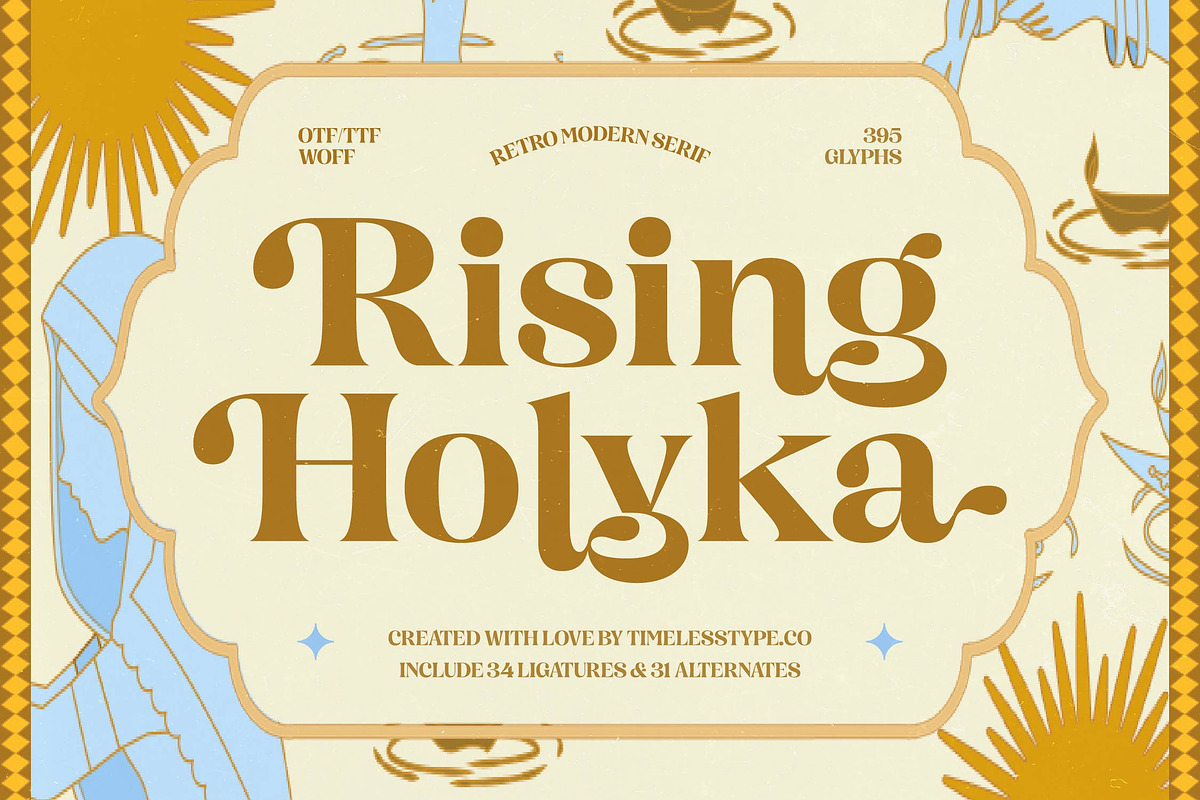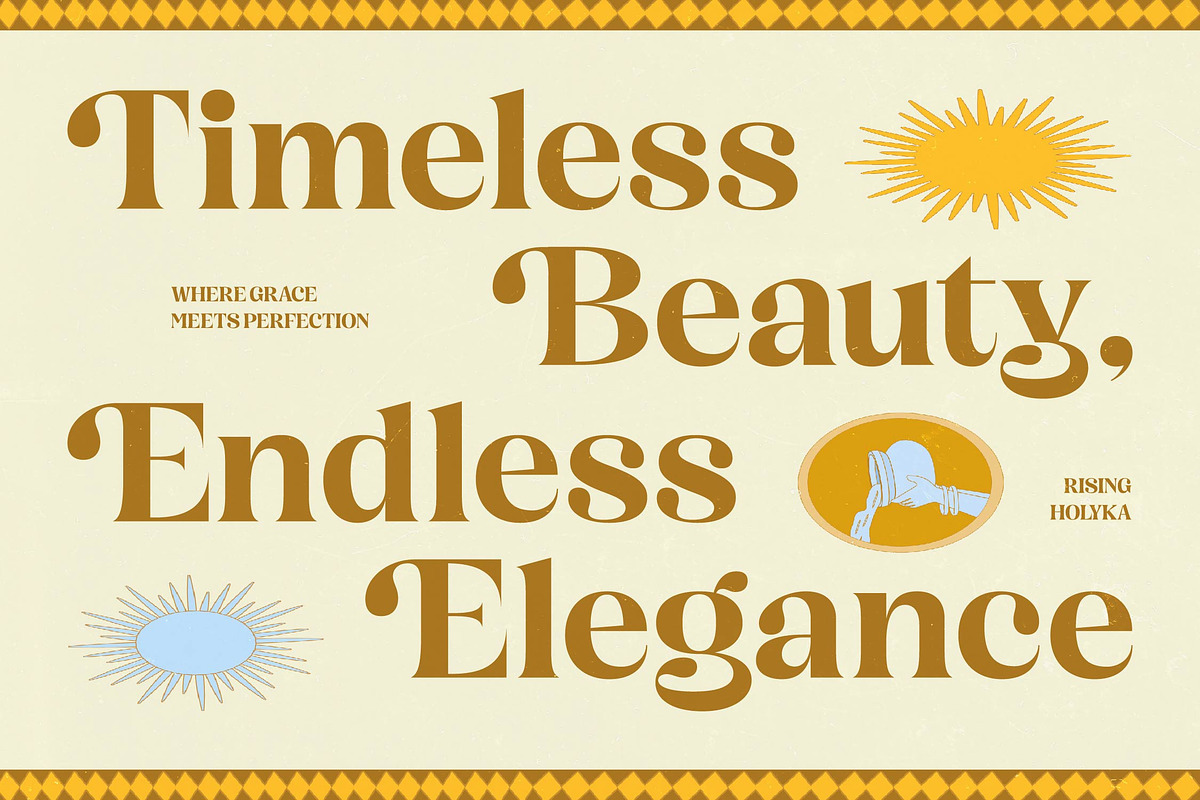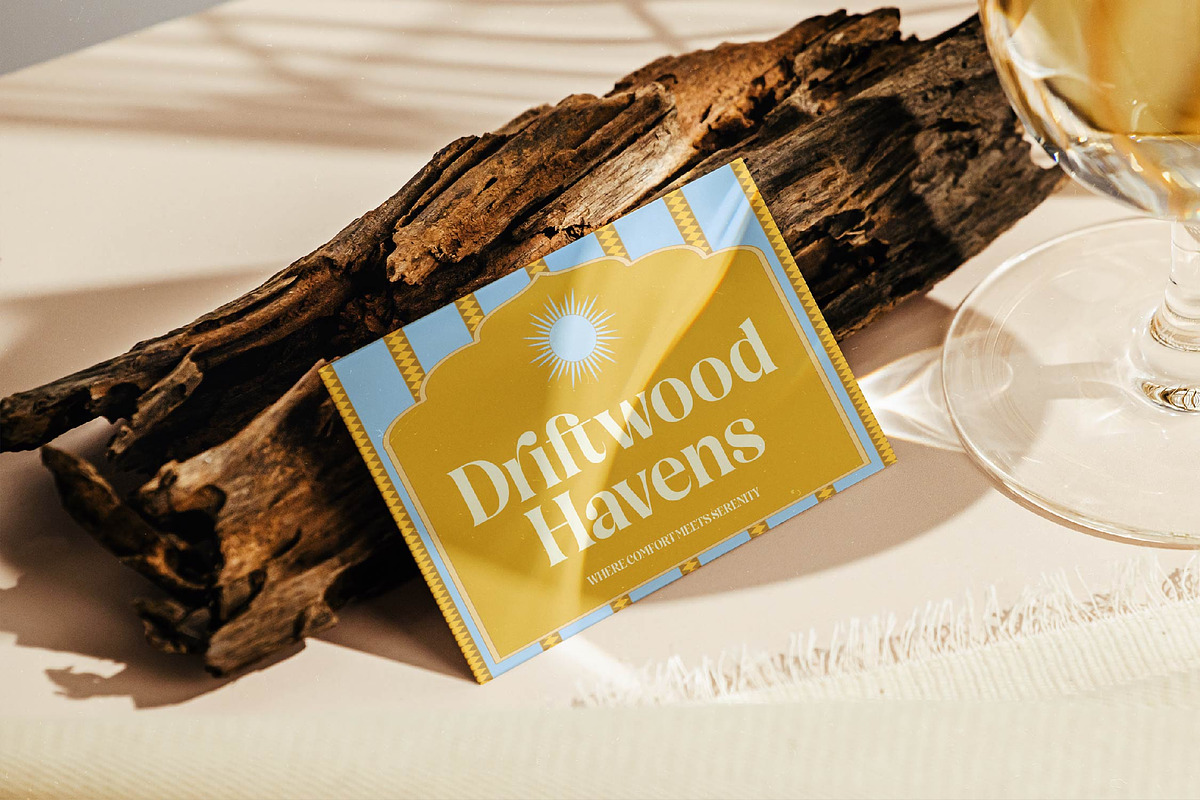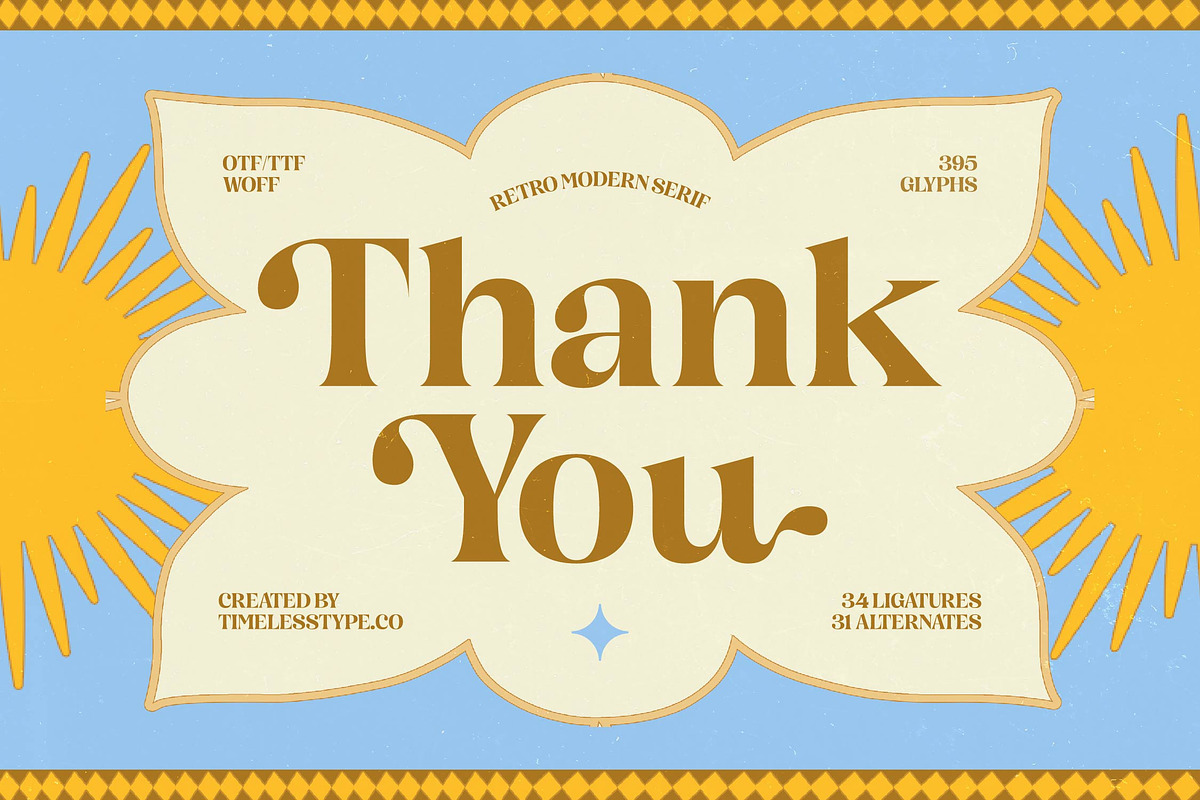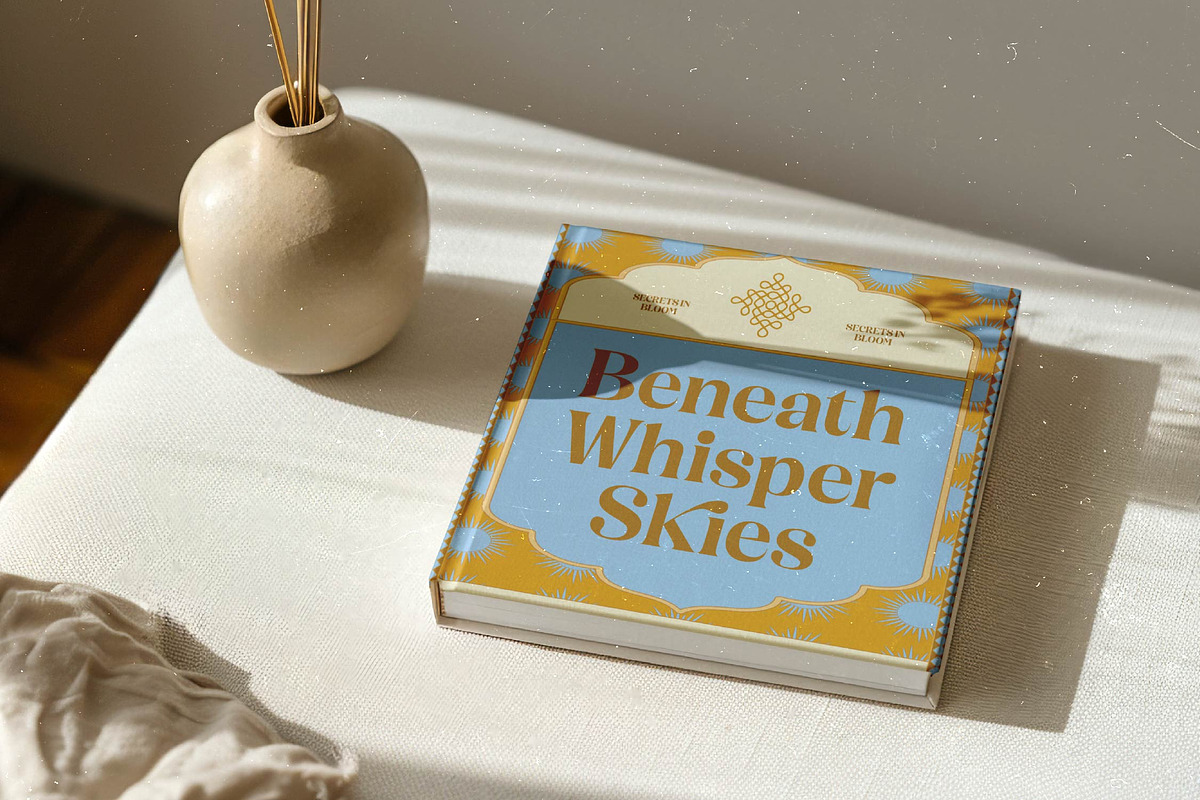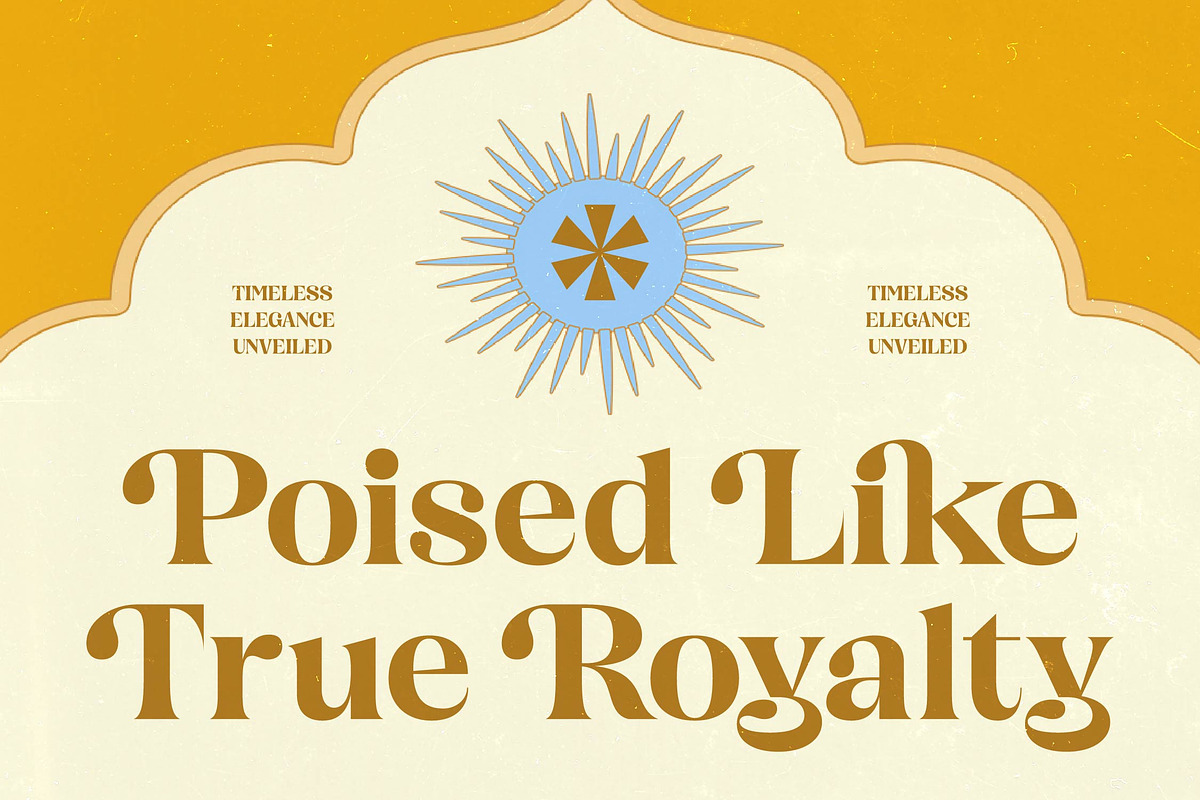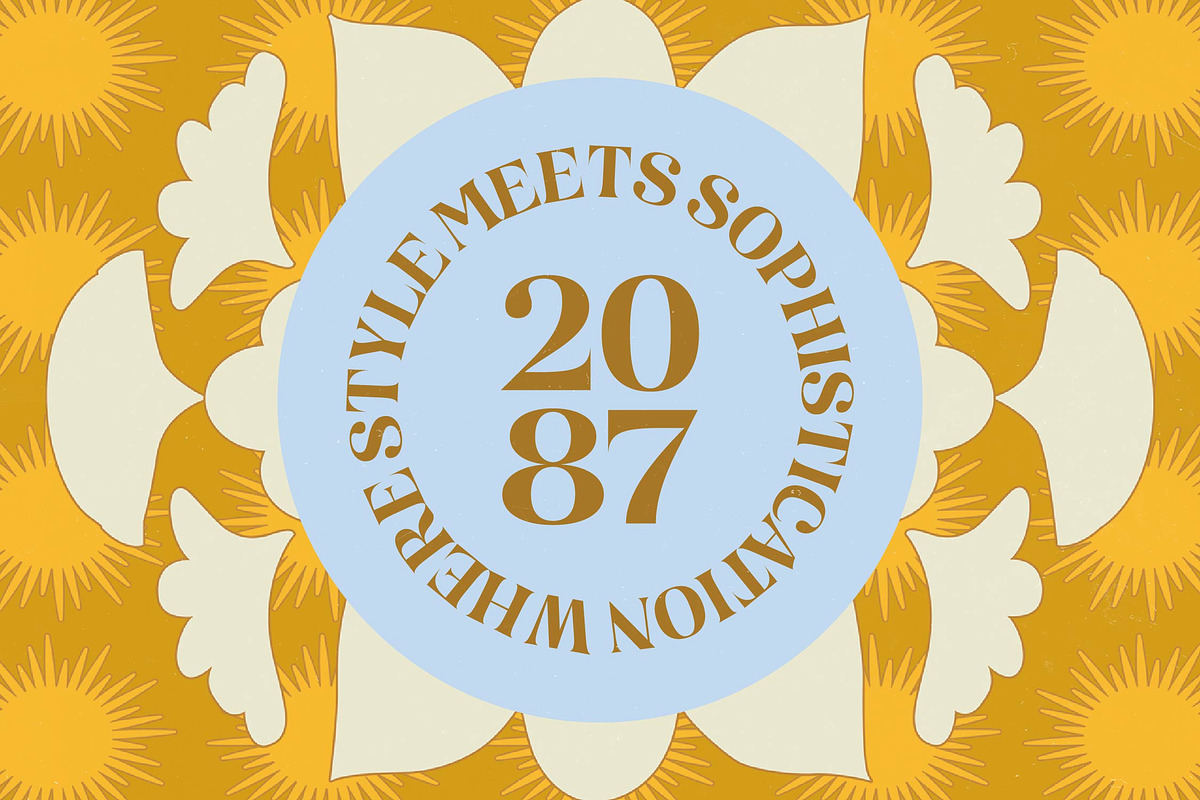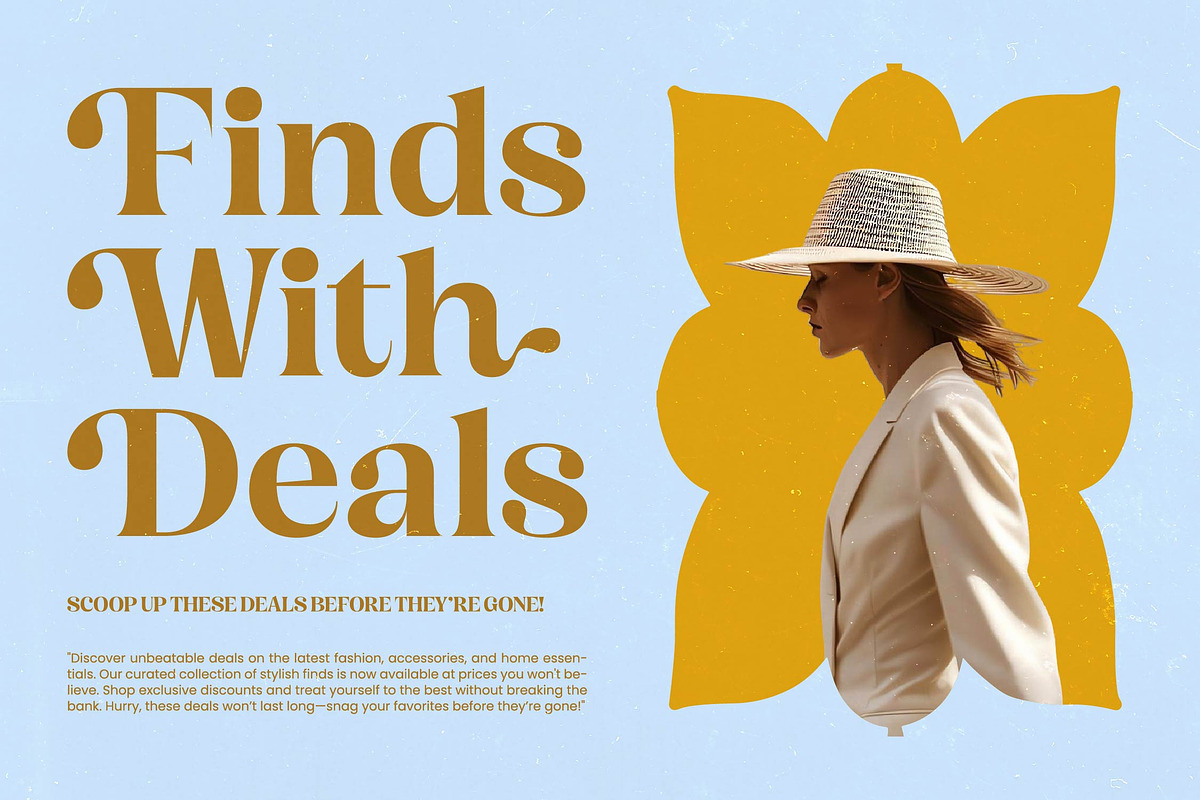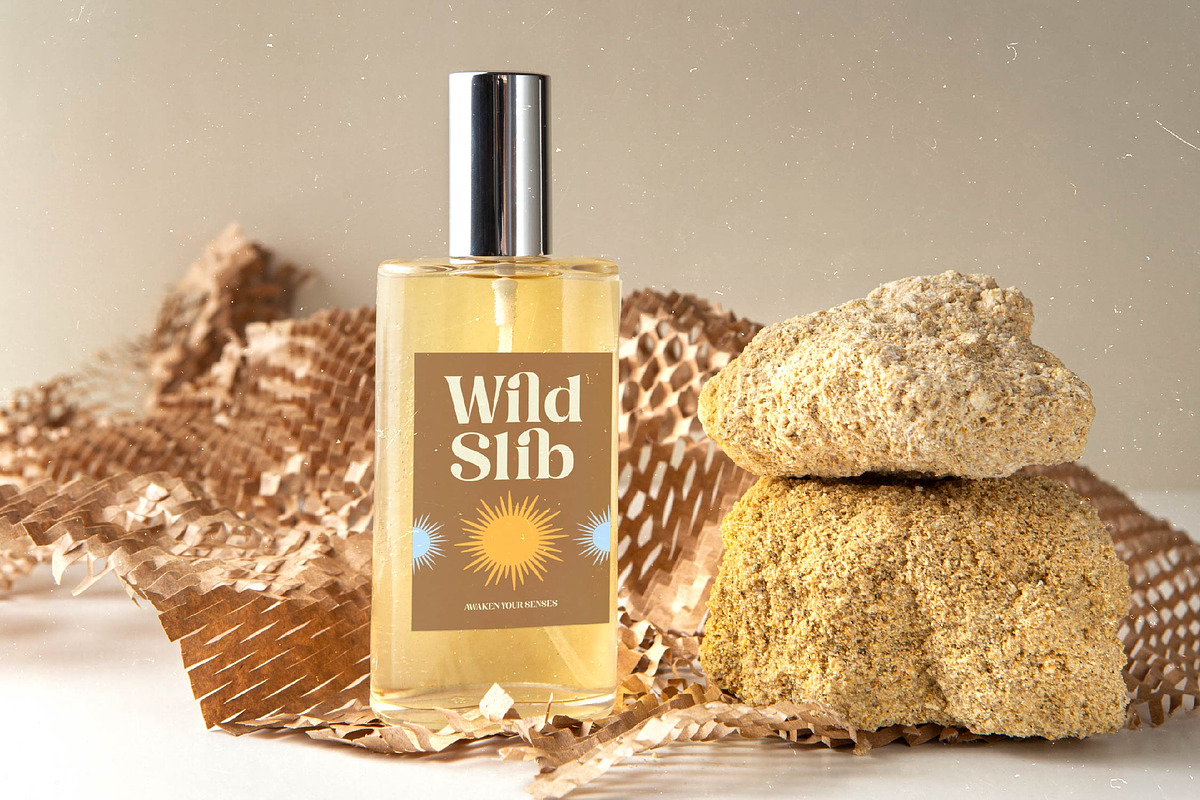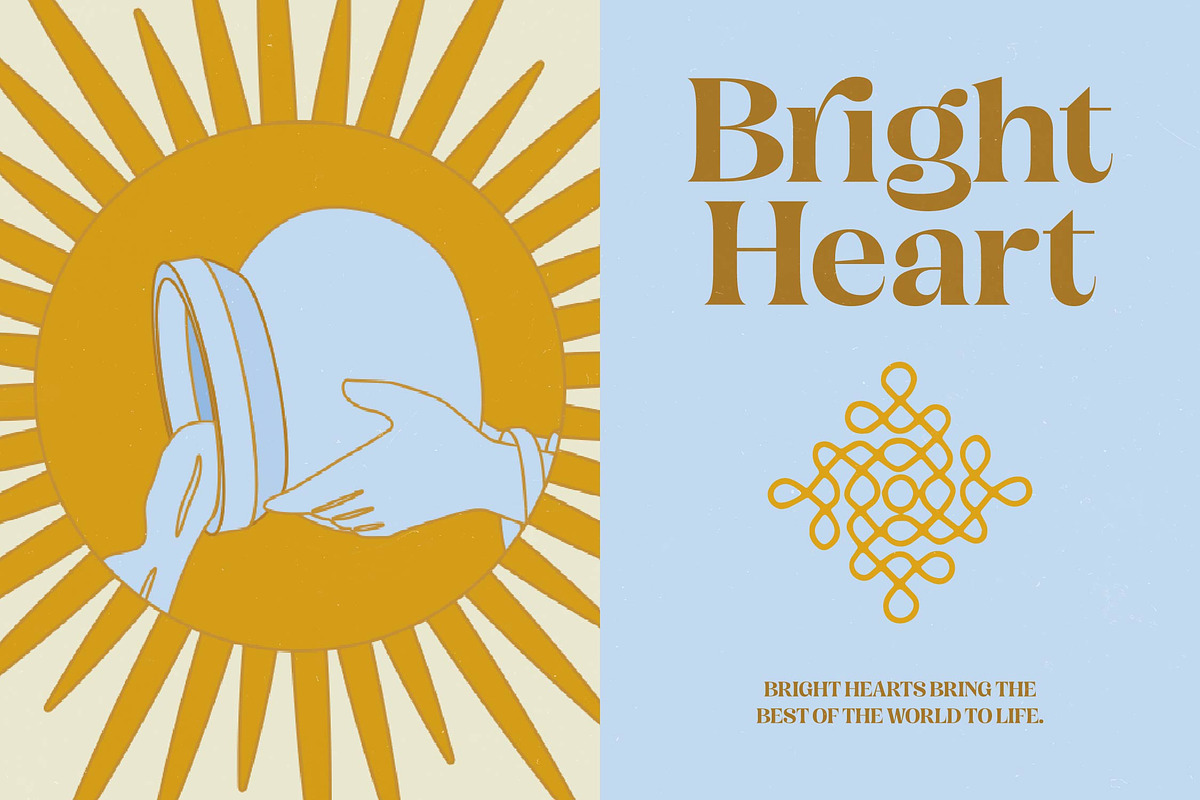
Rising Holyka Retro Modern Serif
Step into a world of timeless elegance and ethereal grace with the enchanting Rising Holyka. This font captures the essence of sophisticated design, blending classic charm with a contemporary edge that commands attention on every page.
Drawing inspiration from the golden hour and the serene beauty of artisanal craftsmanship, this typeface evokes a sense of nostalgia while remaining firmly rooted in the present. It reflects a visual journey through vintage apothecary labels and heritage-inspired motifs, creating an atmosphere of warmth and authenticity.
This modern serif display is designed to provide maximum branding impact through its unique silhouettes and high-contrast serif details. Every curve of this luxury typography is meticulously balanced to function as a versatile editorial font that speaks to an audience seeking refinement and artistic flair.
As the modern serif trend continues to dominate the creative landscape, designers are looking for character-driven typography that breaks away from the ordinary. Rising Holyka perfectly aligns with the rise of editorial display fonts that prioritize personality and fluid movement over rigid structure.
It is the ultimate choice for high-end logo design and comprehensive branding projects that require a touch of class. From luxury packaging and high-street fashion lookbooks to romantic wedding stationery and elevated editorial layouts, this font adapts beautifully to any premium context.
This professional toolkit includes a generous selection of 34 ligatures and 31 alternates to ensure your custom designs look truly hand-crafted. With full multilingual support and a wide range of international characters, it offers total creative freedom for global projects without compromising on its signature swashes.